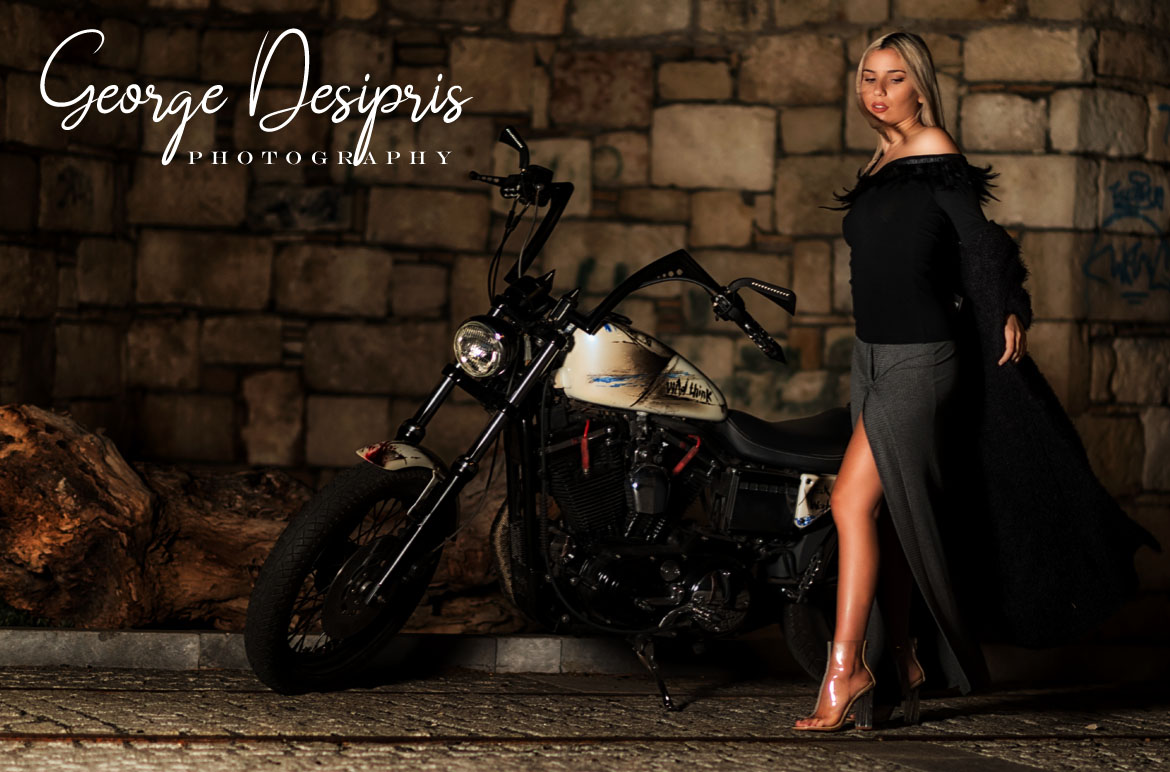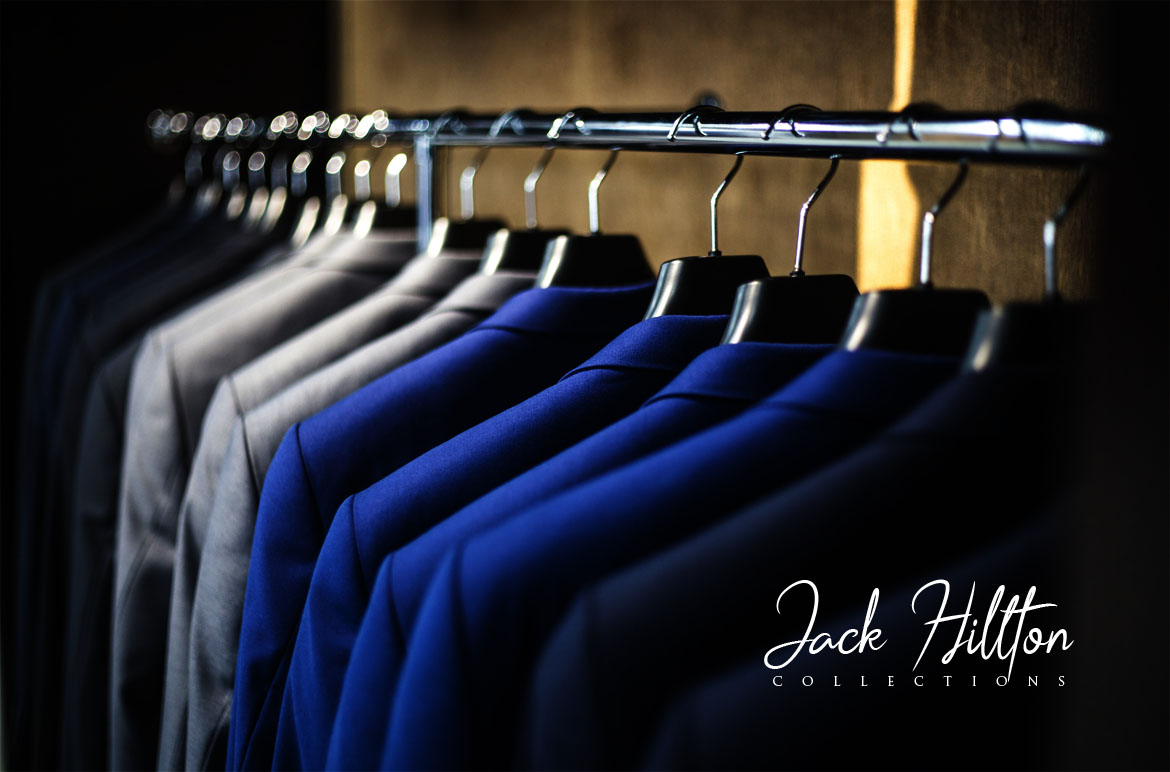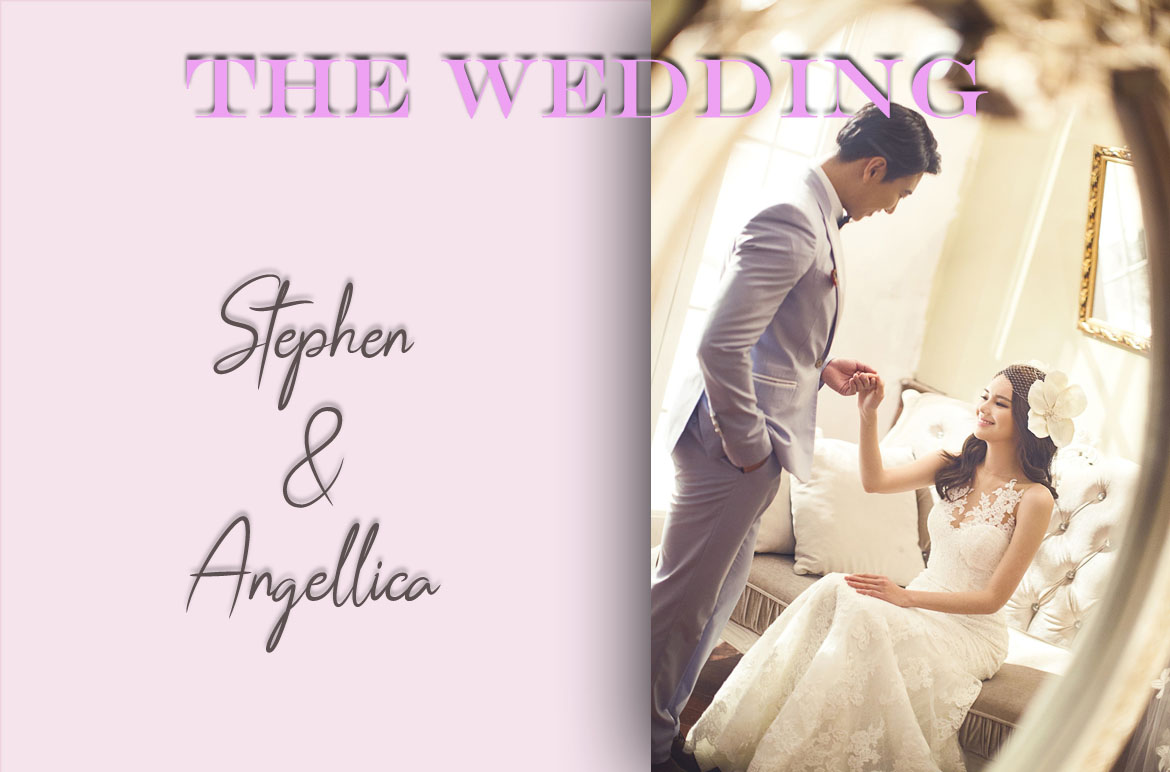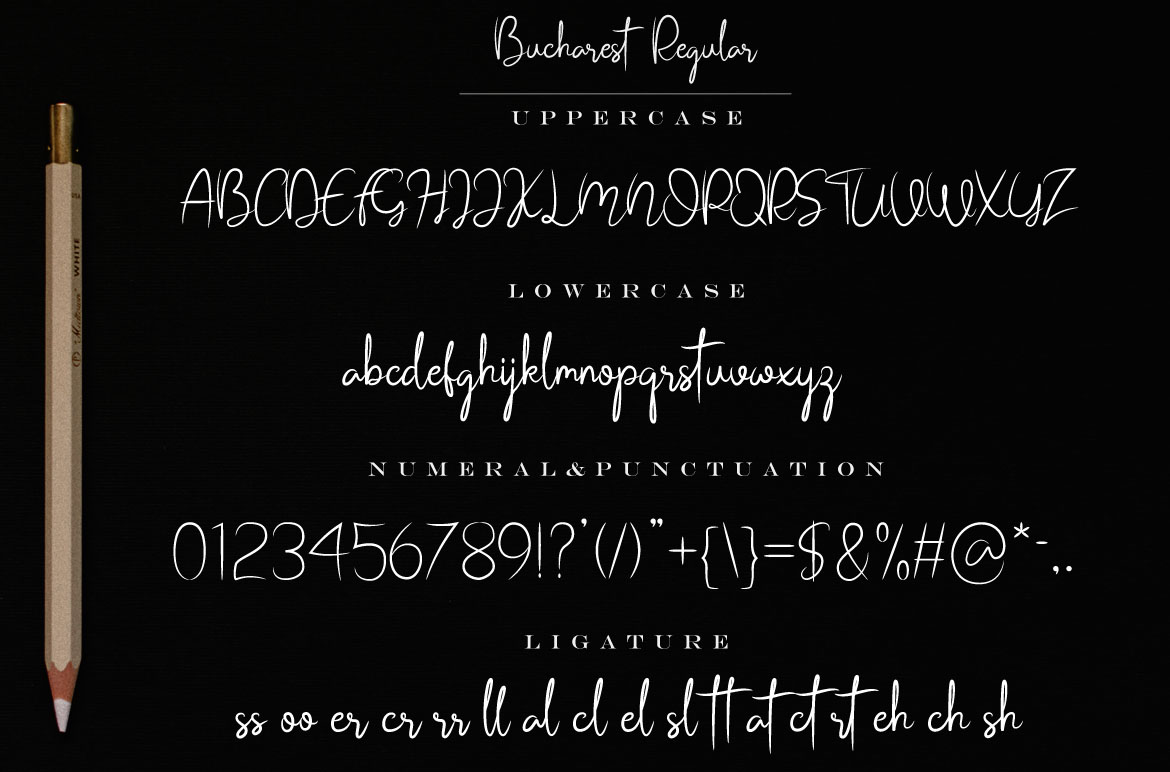
Bucharest Font: Elevate Your Designs with Modern Elegance
In the world of typography, fonts play a crucial role in conveying the tone and personality of a design. For designers and crafters seeking a modern and elegant signature font, look no further than Bucharest. This stunning font is wholly modern and sleek, providing an organic and authentic appeal to projects of all types. In this article, we’ll dive into the world of Bucharest Font, exploring its features, benefits, and uses.
A Modern and Elegant Signature Font
Bucharest Font is a contemporary script font that exudes sophistication and refinement. Its sleek lines, flowing curves, and precise craftsmanship make it an ideal choice for designers seeking to add a touch of elegance to their projects. Whether you’re working on a branding campaign, packaging design, or digital project, Bucharest Font is sure to impress.
Key Features of Bucharest Font
• Modern and sleek design: Bucharest Font boasts a clean and minimalist aesthetic, perfect for designs that require a touch of sophistication.
• Elegant signature style: This font’s signature style is perfect for creating eye-catching headlines, titles, and logos.
• Organic and authentic appeal: Bucharest Font’s unique character ensures that your designs stand out from the crowd, adding an organic and authentic touch to your projects.
• Highly versatile: This font is suitable for a wide range of projects, from branding and advertising to packaging and digital design.
Benefits of Using Bucharest Font
So, why choose Bucharest Font for your next project? Here are just a few benefits of using this stunning font:
• Enhance your brand’s image: Bucharest Font’s modern and elegant design ensures that your brand stands out from the competition, projecting a sophisticated and refined image.
• Increase readability: This font’s clear and precise craftsmanship ensures that your text is easy to read, even at small sizes.
• Add a touch of personality: Bucharest Font’s unique character allows you to add a touch of personality to your designs, setting them apart from the crowd.
Using Bucharest Font in Your Designs
So, how can you incorporate Bucharest Font into your designs? Here are a few ideas to get you started:
• Branding and logos: Use Bucharest Font to create a stunning logo or brand identity that exudes sophistication and elegance.
• Headlines and titles: Add a touch of glamour to your headlines and titles with Bucharest Font’s elegant signature style.
• Packaging design: Use Bucharest Font to add a touch of sophistication to your packaging designs, elevating your brand’s image.
• Digital design: Incorporate Bucharest Font into your digital projects, such as website designs, social media graphics, and more.
Tips and Tricks for Working with Bucharest Font
To get the most out of Bucharest Font, here are a few tips and tricks to keep in mind:
• Experiment with font sizes: Bucharest Font looks stunning at a range of font sizes, from large headlines to smaller body text.
• Play with color: This font looks great in a range of colors, from bold and bright to muted and pastel.
• Mix and match with other fonts: Bucharest Font pairs well with a range of other fonts, so don’t be afraid to experiment with different combinations.
In conclusion, Bucharest Font is a modern and elegant signature font that’s perfect for designers and crafters seeking to add a touch of sophistication to their projects. With its sleek design, elegant signature style, and organic appeal, this font is sure to impress. Whether you’re working on a branding campaign, packaging design, or digital project, Bucharest Font is a versatile and stylish choice that’s sure to elevate your designs.